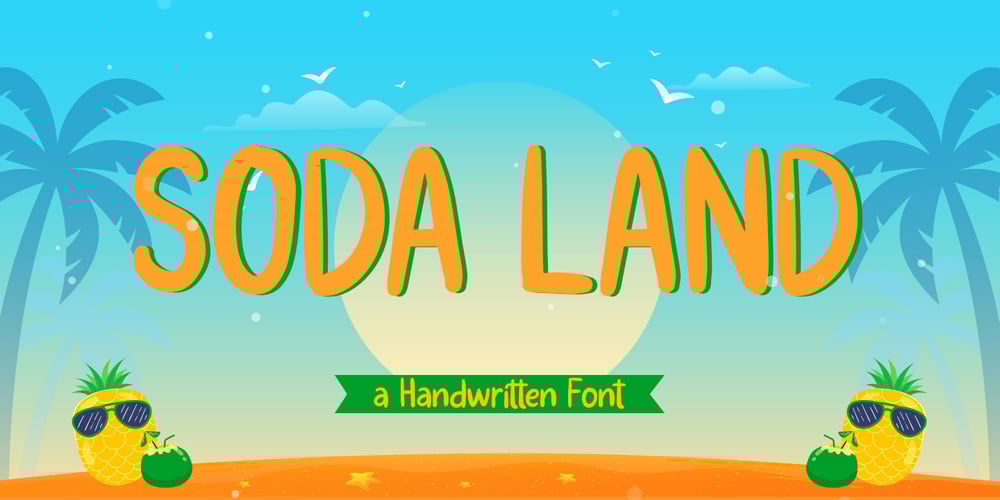
Soda Land Font Family was designed by Hilmius Akbar and published by Typefactory. Soda Land contains 1 styles and family package options. Soda Land is a fancy font that will bring playful feel to your designs.It is inspired by Summer theme typographies and it looks casual and natural.Soda Land is perfect for branding purposes such as logo, label, title, headline, product, social media, business card, quotes, and others